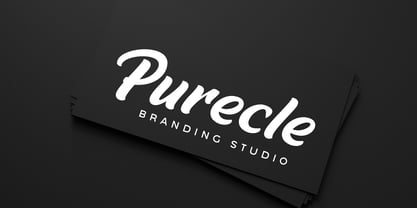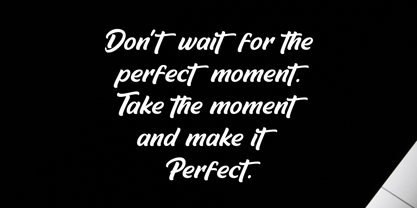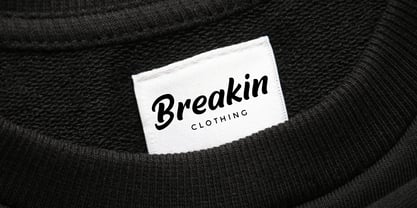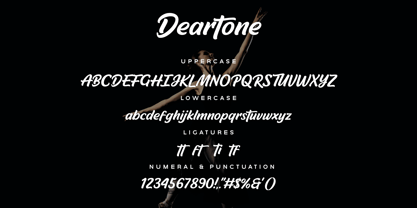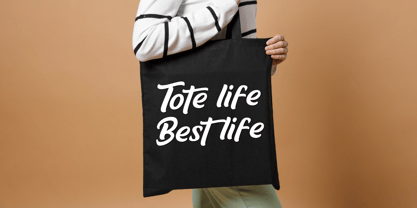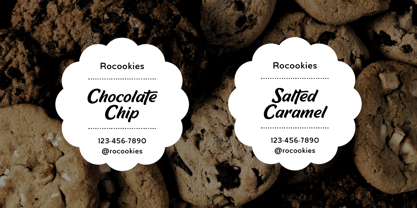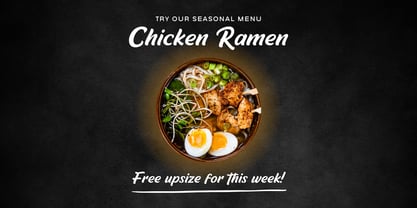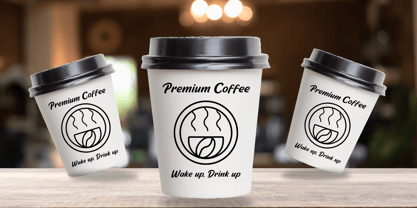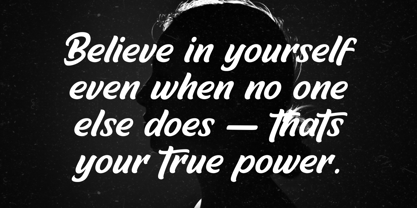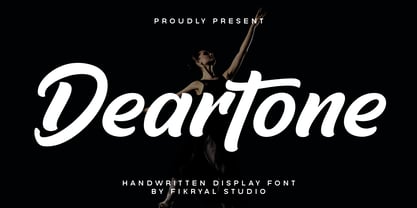
Deartone
by Fikryal
The Deartone Font Family was designed by Muhammad Fikry and published by Fikryal. Deartone contains 1 styles.
Deartone is a bold and expressive handwritten display font designed to add personality and punch to your creative projects. Featuring thick strokes and natural handwriting flair, Deartone is perfect for branding, packaging, social media, posters, and more.
What makes Deartone special is its ligatures that enhance the handwritten feel, giving every word a more authentic, dynamic flow. Whether you’re creating a modern logo or eye-catching headlines, Deartone offers the bold, casual character you’re looking for.
• Ligatures for enhanced character connections
• Full uppercase & lowercase
• Numbers & punctuation
• Multilingual support
• Branding & Logo Design
• Social Media Graphics
• Product Packaging
• Posters & Flyers
• Handmade-themed projects
• Quote designs
Bring a bold, handwritten statement to your next project with Deartone.